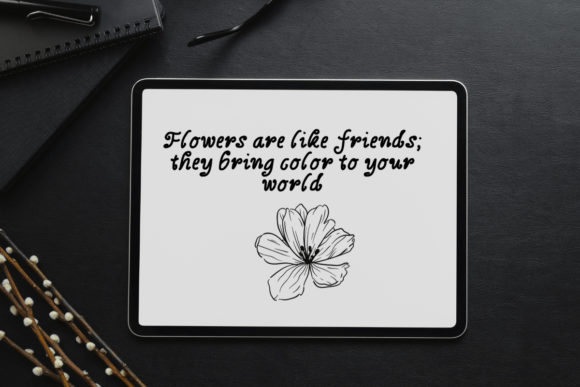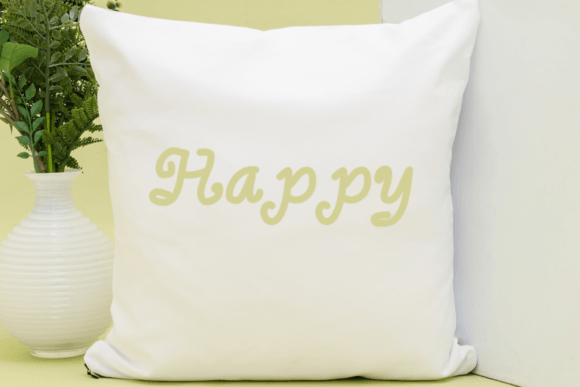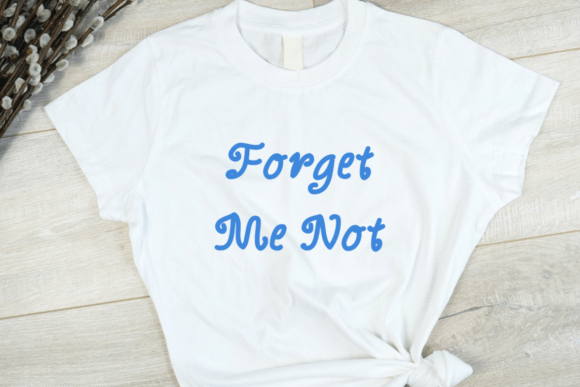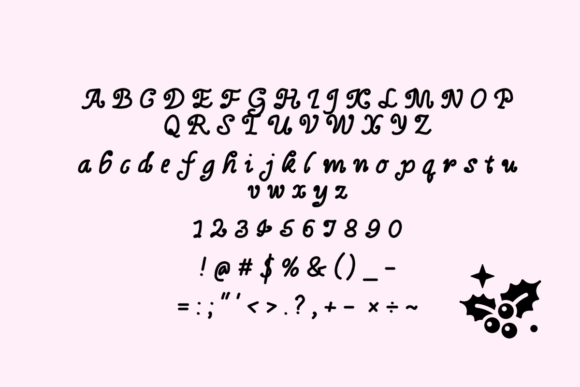
Girly Berry Font: The Sweet and Friendly Handwritten Font for Your Creative Projects
Are you a designer, crafter, or DIY enthusiast looking for a font that can add a touch of sweetness and friendliness to your projects? Look no further than Girly Berry Font! This beautiful handwritten font is perfect for a wide range of designs, from invitations and greeting cards to logos and branding materials. In this article, we’ll take a closer look at Girly Berry Font, its features, and how you can use it to take your creative projects to the next level.
What is Girly Berry Font?
Girly Berry Font is a sweet and friendly handwritten font that is designed to add a personal touch to your projects. Its natural and unique style makes it incredibly fitting to a large pool of designs, from feminine and playful to elegant and sophisticated. The font is perfect for anyone who wants to create a warm and inviting atmosphere in their designs, whether it’s for a personal project or a commercial one.
Features of Girly Berry Font
So, what makes Girly Berry Font so special? Here are some of its key features:
- Handwritten style: Girly Berry Font has a beautiful handwritten style that gives it a personal and unique touch.
- Sweet and friendly: The font has a sweet and friendly feel to it, making it perfect for projects that require a warm and inviting atmosphere.
- Natural and unique: The font’s natural and unique style makes it incredibly fitting to a wide range of designs.
- Versatile: Girly Berry Font can be used for a variety of projects, from invitations and greeting cards to logos and branding materials.
How to Use Girly Berry Font
Girly Berry Font is a sweet and friendly handwritten font that is perfect for a wide range of creative projects. Its natural and unique style makes it incredibly fitting to a large pool of designs, and its versatility makes it a great addition to any designer’s toolkit. Whether you’re a designer, crafter, or DIY enthusiast, Girly Berry Font is sure to inspire your creativity and help you create beautiful and unique designs. So why wait? Download Girly Berry Font today and start creating!